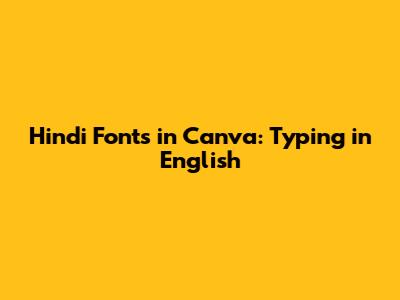
- Color is key: Use colors that complement the Hindi font. Think warm colors like reds, oranges, and yellows, or cool colors like blues and greens, depending on your design's theme.
- Background matters: Choose a background that doesn't clash with your font. A simple, clean background often works best.
- Spacing is your friend: Make sure there's enough space around your text so it doesn't feel cramped.
- Images speak volumes: Use images that tie into the Hindi theme, like pictures of Indian landscapes, festivals, or cultural icons.
Hey guys! Ever wanted to use cool Hindi fonts in your Canva designs but weren't quite sure how to get started, especially when typing in English? Well, you're in the right place! Let's dive into how you can jazz up your Canva projects with some awesome Hindi flair, even if you're typing in English.
Why Use Hindi Fonts in Canva?
First off, why even bother with Hindi fonts if you're primarily typing in English? The answer is simple: visual appeal and cultural connection. Adding a touch of Hindi script can make your designs stand out, especially if you're targeting an audience that appreciates or connects with Indian culture. Whether you're creating social media posts, posters, or presentations, a well-placed Hindi font can add that extra zing that catches the eye.
Using Hindi fonts in your Canva designs can significantly enhance their visual appeal, making them more engaging and culturally relevant. By incorporating elements of Hindi script, even within English text, you can create designs that resonate deeply with audiences familiar with or interested in Indian culture. This approach is particularly effective for social media posts aimed at connecting with the Indian diaspora or for marketing materials intended for a global audience seeking authentic cultural representation.
Furthermore, the integration of Hindi fonts can add a unique layer of sophistication and artistry to your projects. The distinctive curves and intricate designs of Hindi characters provide a visual contrast to standard English fonts, creating a balanced and harmonious aesthetic. This blend of linguistic styles can transform ordinary content into something extraordinary, captivating viewers and leaving a lasting impression. For instance, using a stylized Hindi font for headers or highlighting key phrases can draw attention and convey a sense of elegance and tradition.
Moreover, leveraging Hindi fonts strategically in Canva can serve as a powerful branding tool. Businesses and organizations looking to establish a connection with Indian communities or promote products and services with an Indian theme can benefit immensely from incorporating Hindi script. This not only demonstrates cultural sensitivity but also strengthens brand identity, fostering trust and loyalty among consumers. By carefully selecting fonts that align with the brand’s message and visual style, you can create marketing campaigns that are both impactful and culturally resonant.
Finding the Right Hindi Font in Canva
Canva has a decent selection of fonts, but finding authentic Hindi fonts can be a bit tricky. Here’s a neat trick: search for fonts that include "Devanagari." Devanagari is the script used for Hindi, so this will help you filter down to the fonts you need. Some popular options include Poppins, Roboto, and Noto Sans Devanagari. These fonts often come in various weights, so you can choose the one that best fits your design.
When searching for Hindi fonts in Canva, the use of specific keywords such as "Devanagari" is crucial for narrowing down the options and ensuring you find fonts that accurately represent the script. Devanagari is the writing system used for Hindi, Marathi, and Nepali, making it an essential term for identifying the correct fonts. By including this term in your search, you can filter out irrelevant fonts and focus on those that support Hindi characters. In addition to the previously mentioned fonts like Poppins, Roboto, and Noto Sans Devanagari, exploring fonts such as Mangal and Kruti Dev can also yield excellent results, especially for more traditional or formal designs.
The availability of various weights and styles within these fonts is a significant advantage, allowing you to select the most appropriate option for different design elements. For instance, a bolder weight might be suitable for headings and titles, while a lighter weight could work well for body text or captions. Experimenting with different font combinations and styles can help you achieve the desired visual hierarchy and overall aesthetic coherence in your designs. Furthermore, it's important to consider the readability of the font, ensuring that the Hindi characters are clear and easily discernible, especially when used in smaller sizes.
Canva's font library is continuously updated, so it's worth regularly checking for new additions and exploring different options. You can also upload your own fonts to Canva if you have specific preferences or need to use a font that is not available in their library. This flexibility allows you to customize your designs further and maintain consistency with your brand's visual identity. When uploading fonts, ensure that they are compatible with Canva's system and that you have the necessary licenses to use them for commercial purposes. This will help you avoid any legal issues and ensure that your designs are both visually appealing and legally compliant.
Typing English with a Hindi Font Vibe
Okay, so here's the cool part: you can type in English but give it a Hindi font vibe. How? By using these fonts strategically. For example, use a Devanagari font for your headings or subheadings to give your design that cultural touch. Then, use a standard English font like Arial or Helvetica for the body text to ensure readability. This creates a nice contrast and makes your design look super professional.